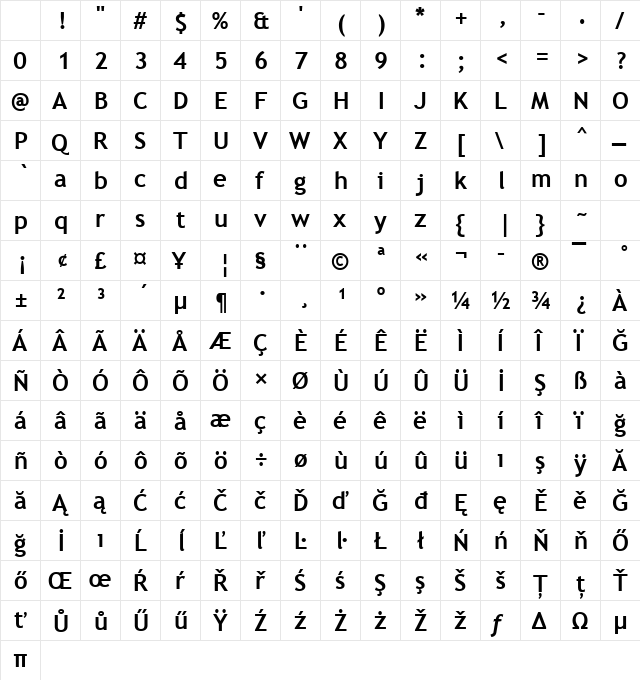
Complete Trebuchet MS Digiscream Bold glyph index. Displaying only characters natively supported by Trebuchet MS Digiscream Bold font.
Trebuchet MS Digiscream is a composed and adaptable typeface that performs quietly and consistently across a wide range of design contexts. Its bold stroke weight gives it real presence on the page.